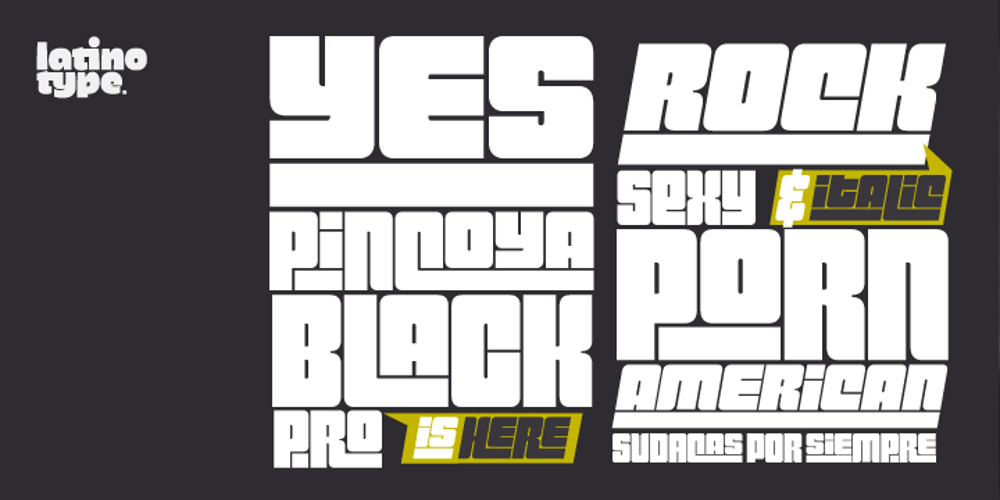
Pincoya Black Pro Font Family was designed by Daniel Hernández and published by Latinotype. Pincoya Black Pro contains 2 styles and family package options. Pincoya Black Pro is a font based on lettering found on a poster from the Spanish Civil War, complemented with graphics developed in “La Unidad Popular” (Chilean political coalition) during the seventies. Pincoya has many alternate characters in Opentype format that provide multiple options when composing a text. It is an ideal font for high impact sentences, logotypes, magazine layouts, poster designs, etc. Languages include: Basic Latin, Western European, Euro, Catalan, Baltic, Turkish, Central European, Romanian and Pan Africa Latin.